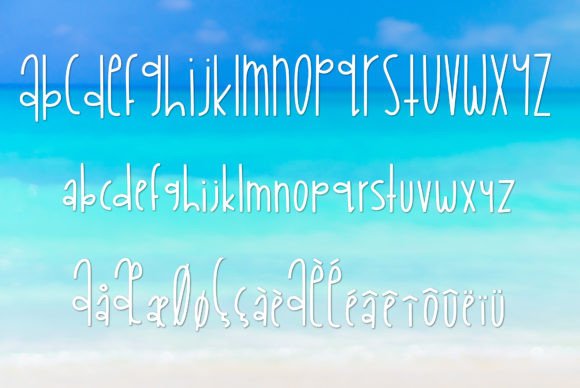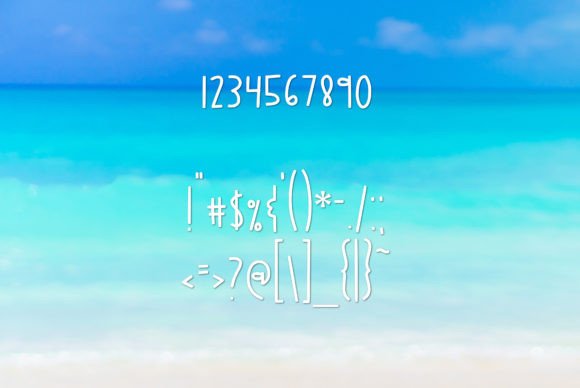
Introduction to Sandcastles Font
β€œSandcastles” is a playful, beach-inspired font that captures the relaxed and carefree spirit of summer days by the shore.
With its hand-drawn, light, and whimsical letterforms, Sandcastles is perfect for fun, casual designs, invitations, posters, and anything needing a lighthearted touch The unique, quirky strokes evoke the feeling of writing in the sand, making it ideal for beach-themed projects or children’s materials.